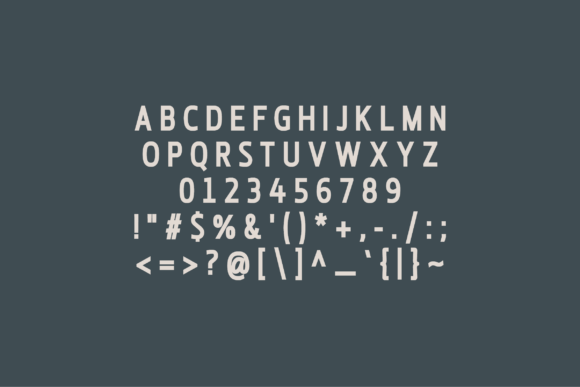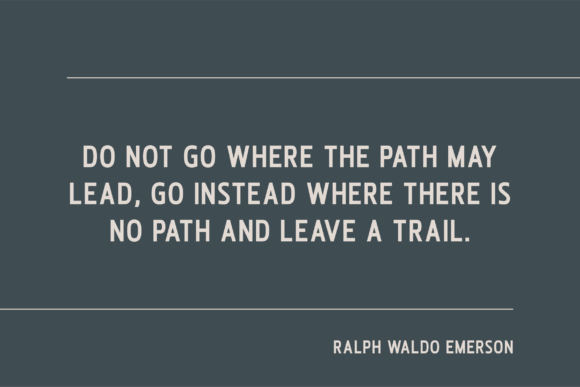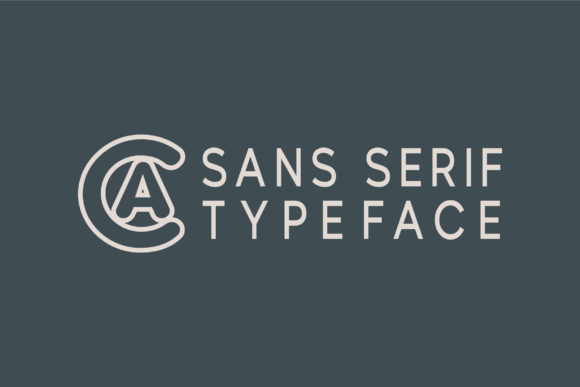
Introducing Clovergrein: The Ultimate Modern Sans Serif Typeface
In the world of typography, a font can make all the difference in the aesthetic and tone of a design. For designers and crafters looking for a modern, classy sans serif typeface, look no further than Clovergrein. This versatile font is perfect for a wide range of applications, from logos and weddings to invitations, quotes, advertisements, print, magazines, and more.
What is Clovergrein?
Clovergrein is a sans serif typeface that boasts a clean and sleek design. The font contains upper characters, numbers 0-9, and a range of punctuation and symbols, making it a comprehensive and functional choice for any design project. The sans serif style gives Clovergrein a modern and sophisticated look, perfect for designers who want to create a contemporary aesthetic.
Key Features of Clovergrein
- Upper Characters: Clovergrein features a full set of upper characters, allowing designers to create bold and eye-catching text.
- Numbers 0-9: The font includes a range of numbers, making it perfect for designs that require numerical information.
- Punctuation and Symbols: Clovergrein also features a variety of punctuation and symbols, providing designers with the flexibility to create complex and detailed designs.
- Modern Sans Serif Style: The font’s sans serif style gives it a clean and modern look, perfect for designers who want to create a contemporary aesthetic.
Uses for Clovergrein
Clovergrein’s versatility makes it perfect for a wide range of applications, including:
- Logos: Create a bold and modern logo with Clovergrein’s clean and sleek design.
- Weddings and Invitations: Use Clovergrein to create beautiful and elegant wedding invitations, programs, and other stationery.
- Quotes and Advertisements: The font’s modern style makes it perfect for quotes and advertisements that require a bold and eye-catching aesthetic.
- Print and Magazines: Clovergrein is also suitable for print and magazine designs, providing a clean and sophisticated look.
Benefits of Using Clovergrein
So why choose Clovergrein for your design projects? Here are just a few benefits of using this versatile font:
- Flexibility: Clovergrein’s comprehensive character set and range of punctuation and symbols make it perfect for a wide range of design applications.
- Modern Aesthetic: The font’s sans serif style gives it a clean and modern look, perfect for designers who want to create a contemporary aesthetic.
- Ease of Use: Clovergrein is easy to read and use, making it perfect for designs that require a clear and concise message.
In conclusion, Clovergrein is a modern, classy sans serif typeface that is perfect for designers and crafters looking for a versatile font for their design projects. With its comprehensive character set, range of punctuation and symbols, and clean and sleek design, Clovergrein is suitable for a wide range of applications. Whether you’re creating a logo, wedding invitation, quote, advertisement, or print design, Clovergrein is the perfect choice.